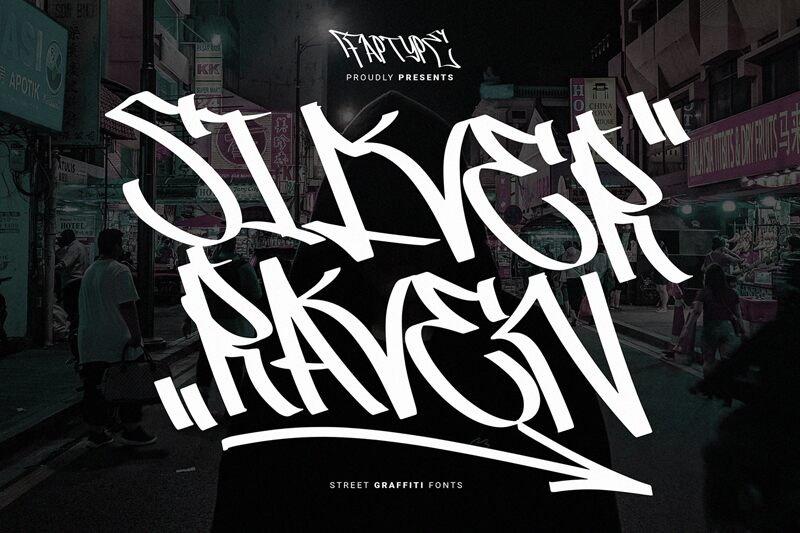
Silver Raven font, by Ferry Ardana Putra of Faptype, is a graffiti-inspired condensed font fusing modern artistry with medieval and Gothic influences. The stylized design reflects its visual roots with ornate elements that feel mysterious and eye-catching. This gothic artistic flair makes it the perfect choice for your boldest projects.
Use this mysterious gem in logos and signatures, on posters or banners, or even for invitations. Apply it wherever headings are needed – on magazine covers, book titles, packaging designs, or merchandise items like t-shirts.